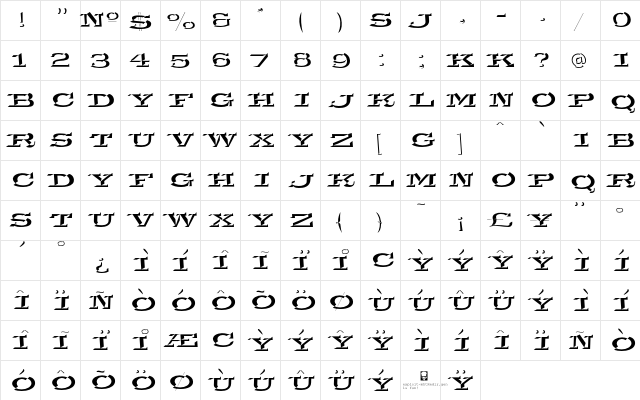
LHF Jumbo Reg CONVEX Regular
| Foundry | John Studden for Letterhead Fonts |
| Designer | John Studden |
Design Context for LHF Jumbo Reg CONVEX Typeface
LHF Jumbo Reg CONVEX takes a measured approach to typography — its balanced proportions and neutral character make it a reliable workhorse for both digital and print work.